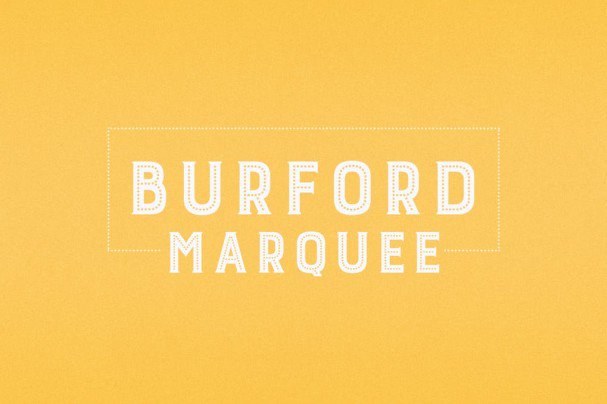
Burford Marquee Font
Burford Marquee Font is present right here free of charge download and private us. This typeface is utilized in logo designing and it’s also in mug printing. As a surrender the cease surrender the stop end result, it makes it possible for being one of the important multi-precious that is much like dense font options and top-notch to help your layout and appear knowledgeable. It’s miles flexible this is an exceptional way to paintings in body reproduction as right as titles, and there may be an understated beauty to it that we quite like.
So, it’s considered notable for pretty-current-day-day designs. Burford Marquee Font Free You want to choose out out out the shape of font that’s nicely advanced, and each person is recognizable in small sizes, bold, or italic. And all of those patterns have possessed opentype record formats. This font is the top notch one which has lines at the top of truely anyone.
As a possibility, a sans-serif font is much like superman font kind is without the extra traces. Download Keep in thoughts the context and motive the market of your projected layout. Get to understand how and the region the purchaser goes to expose the picture. It’s miles a whole champagne & limousines font with a nature of commonality that looks effective in an in-depth scope of uses like printing or displaying.
It looks as if wild magnolia and appealing fonts.